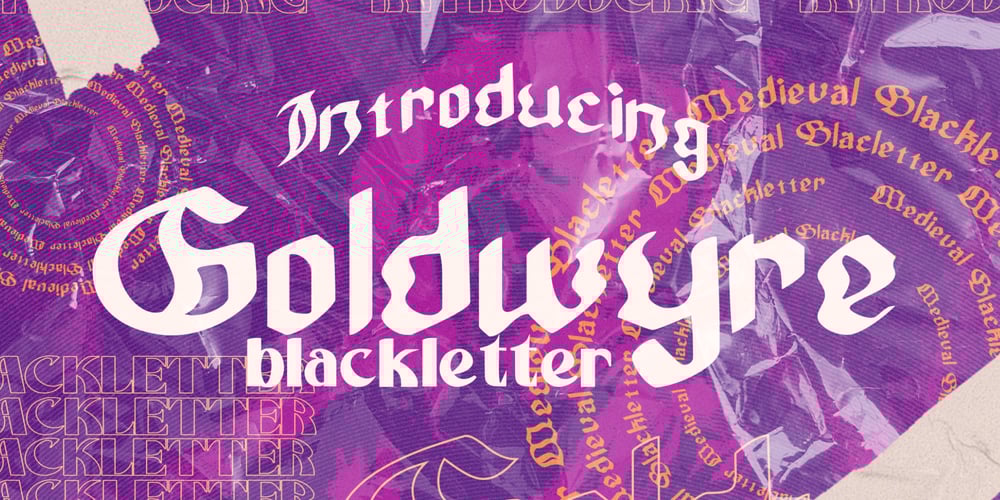
Goldwyre Font Family was designed by Mohamad Farhan Ramadhan and published by Mofr24. Goldwyre contains 2 styles and family package options. Introducing Goldwyre, an extraordinary typeface meticulously crafted to captivate and inspire. With its seamless blend of elements from medieval to modern times, Goldwyre stands out as a truly unique font that embodies the essence of timelessness and elegance. Drawing inspiration from the intricate beauty of Gothic Blackletter and enriched with bold calligraphic strokes, this typeface exudes a mesmerizing charm that effortlessly bridges the gap between the past and the present.What sets Goldwyre apart from other typefaces is its ability to seamlessly combine medieval and modern aesthetics. By skillfully integrating the ornate and elaborate forms of Gothic Blackletter with contemporary design elements, Goldwyre offers a truly captivating typographic experience. This fusion of styles creates a font that is both classic and contemporary, making it an exceptional choice for projects that require a touch of sophistication and versatility.In addition to its captivating design, Goldwyre is available in two weights: regular and bold. The regular weight showcases the delicate intricacies of the typeface, while the bold weight accentuates its bold calligraphic strokes, adding a sense of strength and impact to any design. This versatility allows designers to explore a range of creative possibilities, whether it’s designing eye-catching posters, compelling marketing materials, engaging titles, stylish T-shirt designs, or attention-grabbing headlines.Goldwyre is also a highly functional typeface, offering extensive multilingual support to cater to diverse audiences. It features a wide range of characters and diacritical marks, ensuring that it can effectively communicate in various languages and scripts. This broad language coverage expands the possibilities for global projects, making Goldwyre an excellent choice for international brands, publications, and design agencies.When conceptualizing Goldwyre, our design team aimed to create a typeface that harmoniously blends the grandeur of medieval typography with the sleekness of modern design. We wanted to pay homage to the rich history of typography while infusing it with a contemporary twist, resulting in a font that seamlessly integrates into both traditional and modern contexts. The deliberate fusion of styles and the meticulous attention to detail in Goldwyre’s creation reflect our passion for typography and our commitment to delivering exceptional design solutions.Goldwyre was born out of a desire to provide designers and creatives with a captivating and stylish typographic solution that effortlessly merges the beauty of the past with the demands of the present. We believe that design is a powerful tool for self-expression, and with Goldwyre, we sought to empower designers to create visually striking and evocative designs that leave a lasting impression. Its timeless appeal and versatile nature make it the perfect choice for those who seek to elevate their projects and make a bold statement.Pairing Goldwyre with related families or other typefaces can further enhance its visual impact. It complements well with minimalist sans-serif fonts, such as Futura or Helvetica, providing a striking contrast between the intricate forms of Goldwyre and the clean lines of the sans-serif typefaces. This combination creates a harmonious balance, allowing designers to play with different aesthetics and create visually dynamic compositions.In conclusion, Goldwyre is more than just a typeface; it’s a captivating journey through time. With its seamless blend of medieval and modern elements, extensive multilingual support, and versatile weights, Goldwyre empowers designers to create visually stunning designs across a wide range of applications. Whether you’re designing posters, marketing materials, titles, T-shirt designs, or headlines, Goldwyre is the ultimate choice for those seeking to infuse their projects with a touch of timeless elegance and captivating beauty. Experience the magic of Goldwyre and unlock the true potential of your designs.